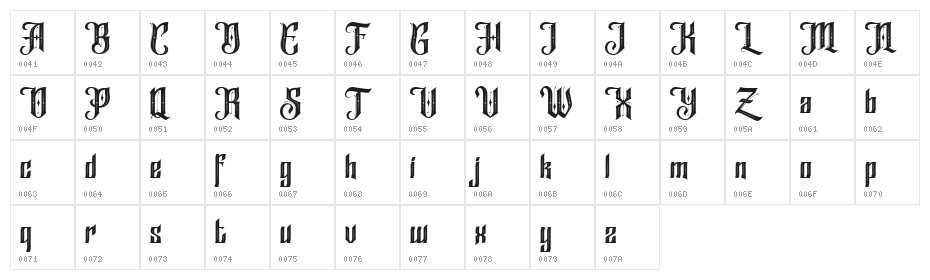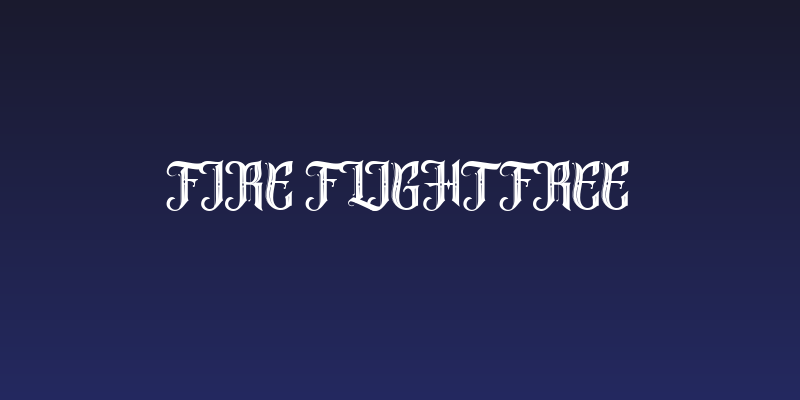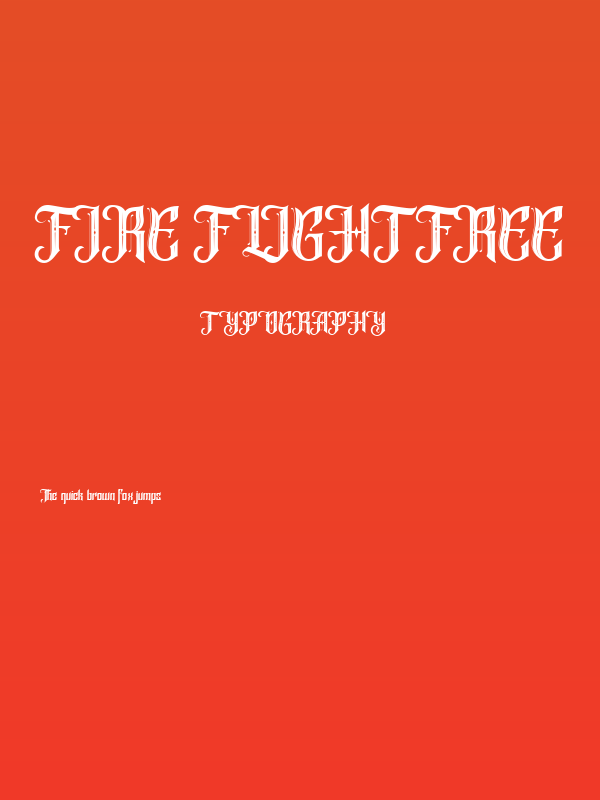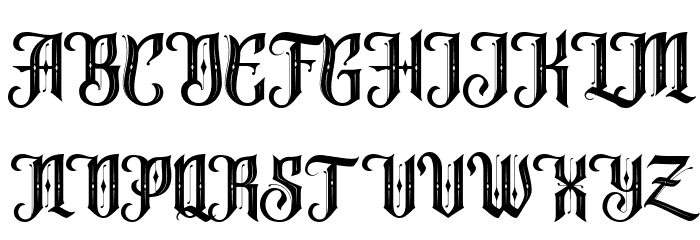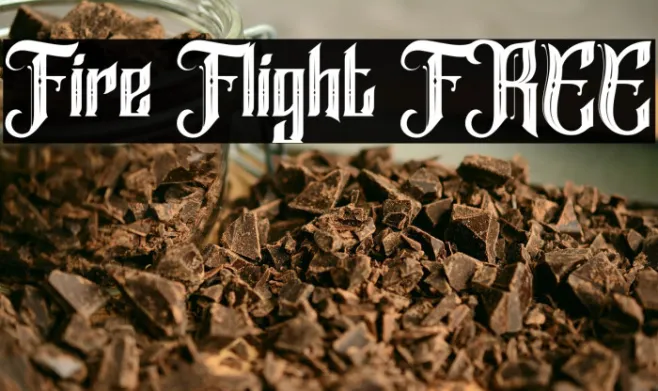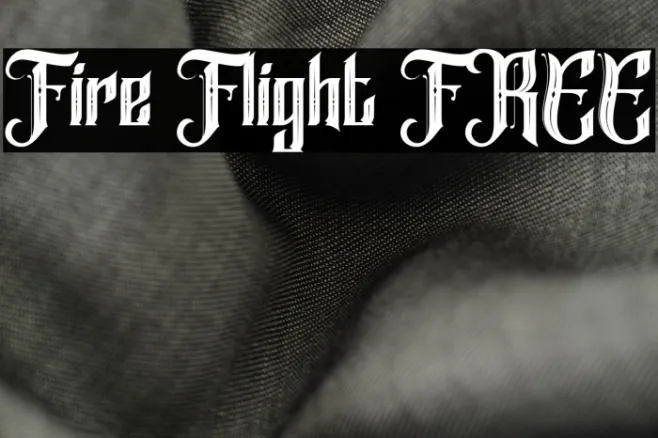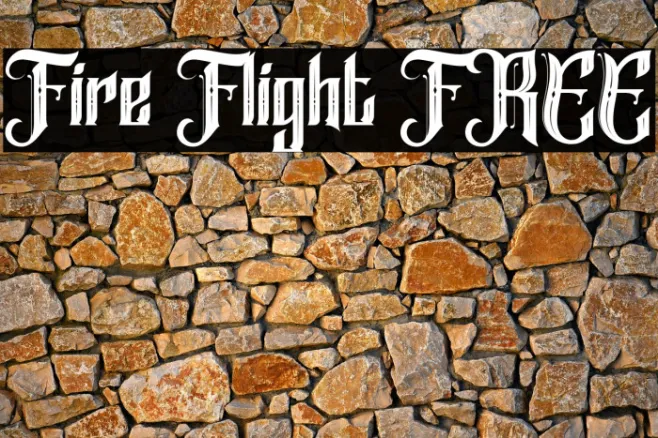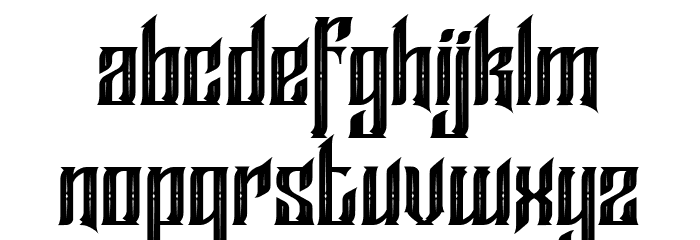
Fire Flight FREE Font
Fire Flight FREE Description
This font features a striking and ornate design, reminiscent of traditional Blackletter styles with a modern twist. The characters are highly decorative, with intricate details and sharp, angular lines that create a sense of drama and elegance. The uppercase letters are particularly elaborate, with flourishes and embellishments that enhance their visual impact. The lowercase letters maintain a consistent style, offering a cohesive look across the alphabet. The numerals and special characters are equally detailed, ensuring a uniform appearance throughout. This font is ideal for projects that require a bold and distinctive aesthetic.
| Proposed Projects | Ideal for branding, posters, album covers, and any project needing a bold, historical aesthetic. |